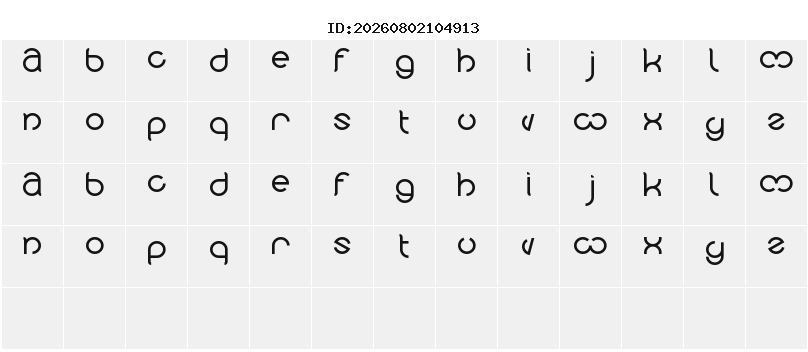
nicole Preview
• Font Name: nicole
• Font ID: nicole:Version 1.00
• Full Font Name: nicole
• Version: Version 1.00 July 14, 2011, initial release
• PostScript Name: nicole
• Designer: 睥歮潷⹤敶楡湴慲琮捯洠晵湲散潲摀祡桯漮捯?
• Manufacturer: 睥歮潷⹤敶楡湴慲琮捯洠晵湲散潲摀祡桯漮捯?
About nicole.ttf
nicole.ttf is a modern, elegant sans-serif font designed for ultimate readability and visual harmony. Perfect for branding, headlines, web design, and print materials.